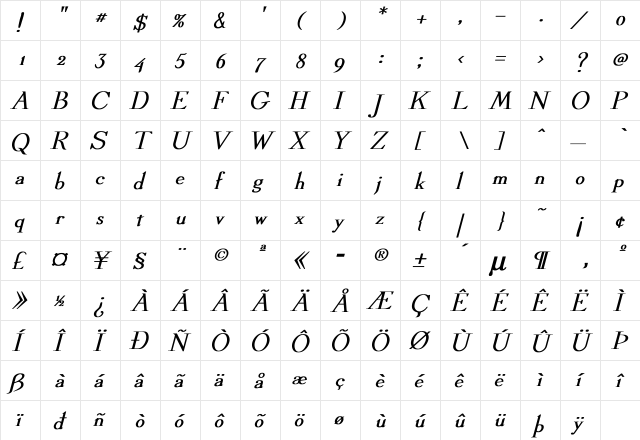
Linden Bold Italic
Design Context for Linden Typeface
Linden is a composed and adaptable typeface that performs quietly and consistently across a wide range of design contexts. Its italic angle brings a sense of urgency and motion to the letterforms. Its bold stroke weight gives it real presence on the page.
Pro Tip: Try Linden for annotation and caption copy alongside an upright companion — the contrast in angle creates a dynamic but ordered typographic system.